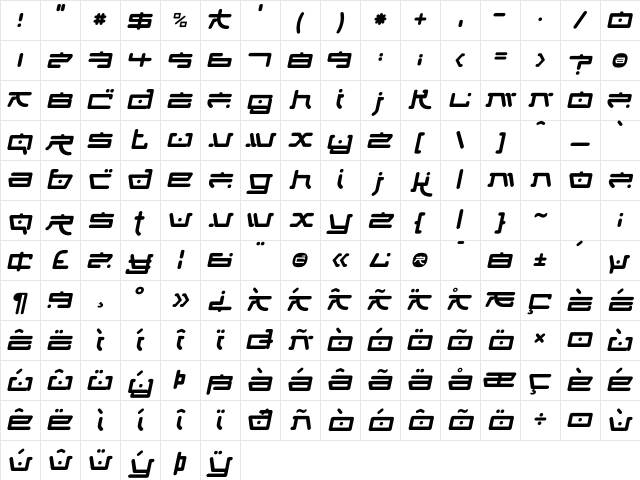
FungFoo Italic Free Font
FungFoo Italic
Design Context for FungFoo
FungFoo has an approachable, lighthearted character - its loose, expressive forms are well-suited to children's content, casual branding, and fun-first design. The slanted form adds forward momentum and visual energy.
Font Pairing: Pairs well with a rounded or humanist sans for body copy, maintaining the friendly tone without relying on FungFoo to carry extended reading.
Pro Tip: Use FungFoo at larger display sizes where its expressive character can land. Pair with a clean, simple sans for body copy to maintain readability.